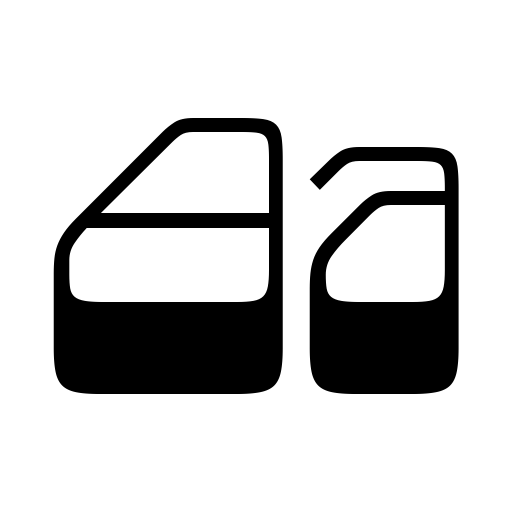
Blazium is a modern, futuristic sans serif font characterized by its unique geometric shapes and striking contrast between thin lines and heavy solid forms. Its tall, narrow letterforms with soft rounded edges give it a sleek yet playful personality, perfect for eye-catching logos, tech branding, or modern editorial design. This font stands out in headlines or display uses where its avant-garde style and distinct character shapes can shine.
Blazium Font
About Blazium Font